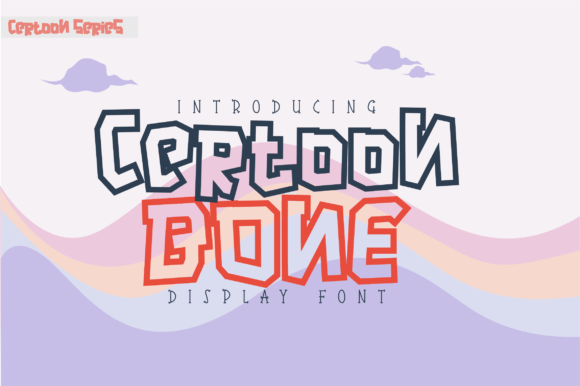
Certoon Bone: A Minimalist Display Font for Editorial Design
I remember the exact moment I realized my blog’s visual identity was fighting against its own content. I had spent weeks refining the writing, ensuring every sentence flowed with clarity and purpose, yet the header typography felt heavy, cluttered, and ultimately distracting. The goal was not to shout, but to curate a mood that felt both modern and timeless. That search led me to Certoon Bone, the sixth installment in the renowned Certoon Series. It is a typeface that breaks conventional boundaries by showcasing only its distinctive outline, offering a skeletal elegance that transforms how text occupies space on a page.
The Anatomy of Silence in Typography
What makes Certoon Bone distinct is its radical reductionism. Unlike traditional display fonts that rely on thick strokes or intricate serifs to command attention, this font relies on negative space. It is an outline-based display font that feels airy, architectural, and quietly confident. When you first place it into a layout, the immediate effect is one of sophistication. The letters do not compete with images; they frame them.
In editorial design, there is often a tension between decoration and readability. Certoon Bone resolves this by acting as a structural element rather than mere decoration. Its thin, hollow forms create a rhythm that guides the eye without overwhelming it. This makes it particularly effective for publication identities where brand voice is subtle yet strong. Whether you are designing a high-end fashion magazine cover or a minimalist lifestyle newsletter, the font provides a sense of premium quality simply through its restraint. It whispers authority rather than shouting it, which is exactly the kind of nuance independent publishers and creative brands need to establish trust with their audience.
Real-World Applications in Digital and Print Layouts
To truly understand the utility of Certoon Bone, it helps to look at how it performs in actual publishing scenarios. Consider a recent project involving a digital wedding guide. The client wanted a feel that was romantic but not cliché—avoiding the overly ornate script fonts that dominate that niche. We tested Certoon Bone for the main titles and chapter headers. The result was striking. The outlined letters allowed background photography to bleed through the text, creating a layered, immersive experience that felt cohesive and intentional.
Similarly, in the realm of coaching workbooks and printable planners, visual hierarchy is critical. Users scan these documents quickly, looking for key takeaways or section breaks. Using Certoon Bone for pull quotes or section dividers adds a touch of modern elegance that elevates the perceived value of the product. It turns a simple PDF into a designed asset. For creators selling digital downloads on platforms like Etsy or Gumroad, this level of polish can be a significant differentiator. The font’s clean lines ensure that even when scaled down for mobile screens, the text remains legible and stylish, provided it is used correctly.
- Blog Headers: Use large, bold instances of Certoon Bone to anchor your site’s branding, allowing ample whitespace around the letters to emphasize the outline style.
- Ebook Titles: On cover designs, the skeletal nature of the font creates a sophisticated silhouette that stands out against solid color backgrounds or textured imagery.
- Newsletter Graphics: For email marketing, use the font sparingly for subject line accents or call-to-action buttons to draw attention without cluttering the inbox preview.
- Social Media Quotes: Overlay Certoon Bone on Instagram stories or Pinterest pins to create shareable, aesthetically pleasing graphics that align with a modern brand identity.
Readability and Structural Hierarchy
While Certoon Bone excels as a headline or decorative element, it is crucial to acknowledge its limitations regarding body copy. As a creative font defined by its outline structure, it lacks the density required for comfortable long-form reading. Attempting to set paragraphs in Certoon Bone would fatigue the reader’s eyes, as the brain struggles to track the gaps in the letterforms. Therefore, its role in any layout must be strictly hierarchical.
Effective font pairing is essential here. To balance the airy, abstract nature of Certoon Bone, pair it with a highly readable serif serif font for body text. The contrast between the structured, elegant outlines of the display font and the grounded, dense shapes of a classic serif creates a dynamic visual tension. Alternatively, for a more contemporary, tech-forward look, pair it with a clean sans serif font for captions, navigation menus, and metadata. This combination ensures that while the display elements capture attention, the informational content remains accessible and easy to digest.
This distinction is vital for modern typography best practices. In web design and editorial design, user experience (UX) dictates that decorative fonts should never compromise accessibility. By reserving Certoon Bone for titles, subtitles, and short phrases, you maintain a clear visual path for the reader. The font acts as a signpost, directing attention to key areas, while the supporting typeface handles the journey. This approach supports consistent brand identity across various media, from packaging design to web design, ensuring that your visual language remains coherent regardless of the medium.
Before integrating Certoon Bone into your next project, it is important to review the technical specifications included with the commercial font license. Verify the available weights and styles; while the primary appeal lies in its outline form, some versions may offer filled variants or alternate glyphs that add versatility. Check for multilingual support if your content targets international audiences, as character sets can vary significantly among premium font releases.
Certoon Bone is not just a font; it is a stylistic choice that signals minimalism and confidence. It serves as a powerful tool for designers who want to inject personality into their layouts without resorting to loud colors or complex illustrations. Its ability to blend seamlessly with photography and whitespace makes it an ideal candidate for lifestyle blogs, creative portfolios, and high-end editorial features. By using it strategically alongside robust body text, you can create layouts that are not only beautiful but also functional and engaging. In a digital landscape saturated with noise, sometimes the most impactful statement is made by what is left out—and Certoon Bone masters that art beautifully.